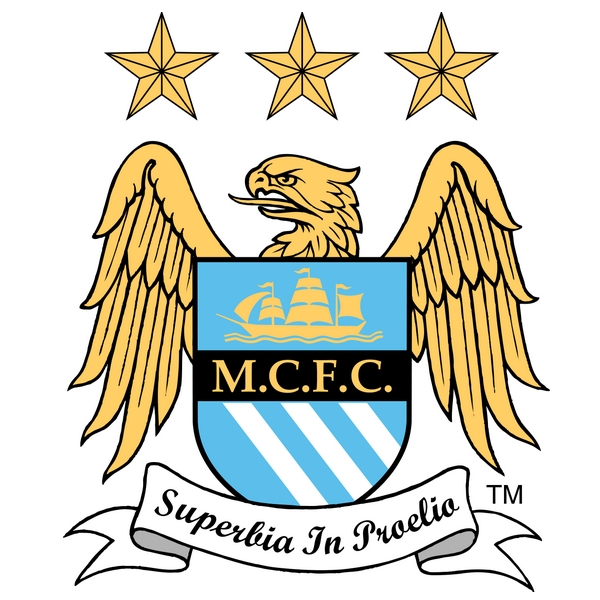
Manchester City Font
Fonts in UseManchester City Football Club commonly known as Man City, is a professional soccer team based in Manchester, England. They are one of the most successful clubs in recent years, known for their attractive style of play and winning numerous domestic and international titles.
The current Man City badge features a shield with a golden eagle, symbolizing Manchester. The shield includes a ship representing the Manchester Ship Canal, three diagonal stripes for the city's rivers, and the text "M.C.F.C" in Palatino font. The motto "Superbia in Proelio" (Pride in Battle) appears at the bottom in Monotype Script font.